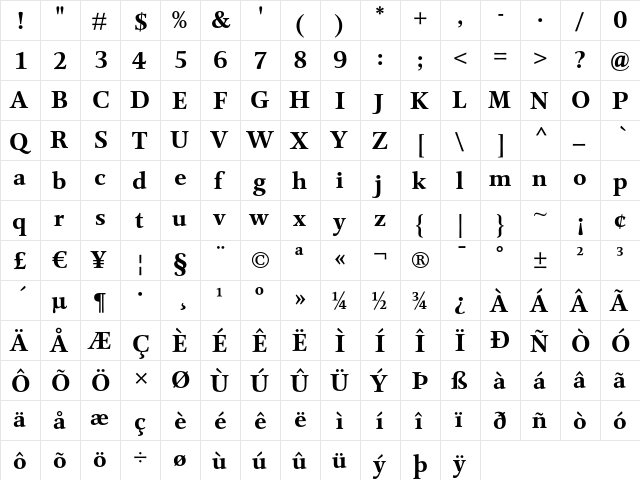
Mentor Bold
Design Context for Mentor Typeface
Mentor is a composed and adaptable typeface that performs quietly and consistently across a wide range of design contexts. The heavy weight commands attention and anchors typographic hierarchies.
Pro Tip: Use Mentor in both headline and body roles to test its range before committing to a single application.